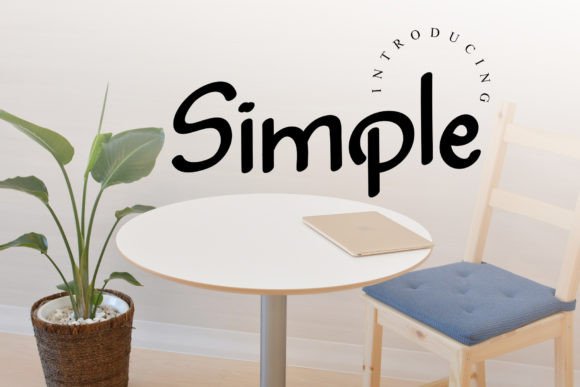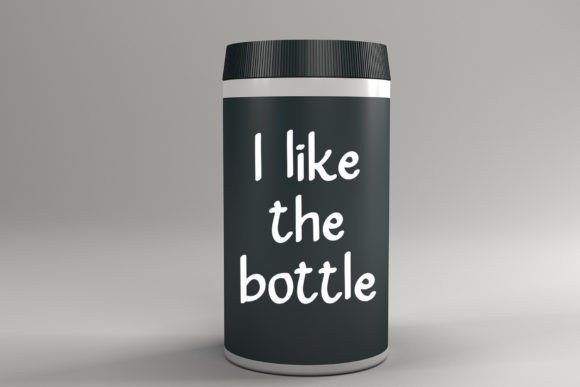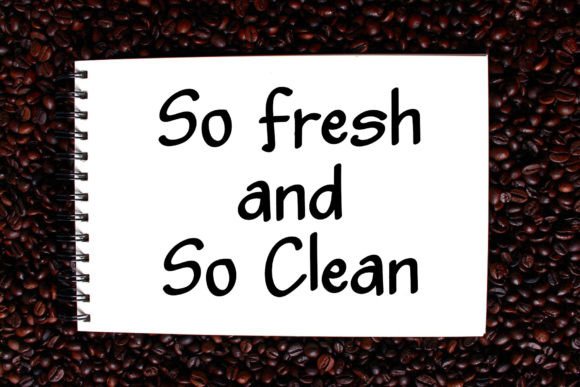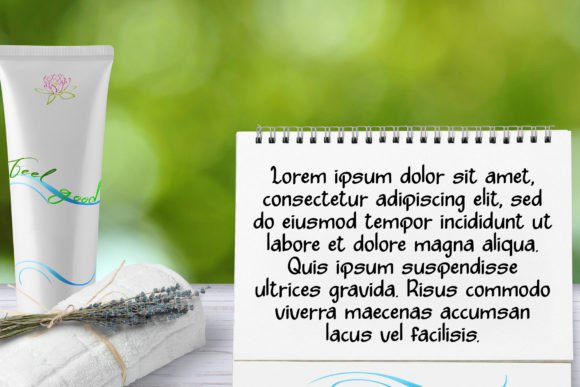
Simple Font
Simple: An Elegant Handwritten Font That Feels Natural and Real
Looking for a typeface that combines sophistication with a natural hand-drawn feel? Meet Simple, an elegant handwritten font crafted to elevate your design projects. With its unique baseline and organic flow, Simple adds a warm, personal touch to both formal and creative designs.
This font is the perfect solution for projects that demand elegance, authenticity, and visual charm. Whether you’re designing for weddings, brands, or personal content, Simple delivers style with grace.
A Handwritten Font with Personality and Class
What makes Simple truly shine is its natural structure. Unlike rigid digital fonts, it features a varied baseline and carefully designed letterforms that replicate the rhythm of real handwriting. This results in a design that feels human, yet remains refined and professional.
This elegant handwritten font is ideal for:
• Wedding invitations and save-the-dates
• Greeting cards and holiday messages
• Business cards and company logos
• Billboard and poster designs
• Personalized branding or packaging
• Journals, notebooks, and planners
Wherever a personal or romantic touch is needed, Simple fits beautifully.
Why Designers Love Simple Font
The Simple font strikes a perfect balance between stylish and approachable. Its slightly whimsical baseline adds just the right amount of charm without compromising readability. You’ll find that it works equally well in large-scale headlines and small text elements.
Key features of this elegant handwritten font include:
• Smooth, flowing characters with a natural feel
• Varied baseline for authentic visual rhythm
• Excellent legibility in print and digital formats
• A graceful aesthetic for romantic or classy themes
• Great pairing with sans-serif or serif fonts
Simple adapts seamlessly to both casual and formal designs, giving you full creative flexibility.
Perfect for Weddings, Branding, and Elegant Touches
Whether you’re designing romantic wedding stationery or crafting a modern logo, Simple is a font that enhances every project. Its natural charm and polished execution make it an invaluable asset for designers, marketers, and DIY creators.
Popular use cases include:
• Elegant event invitations
• Personalized stationery and cards
• Quotes, planners, and social media visuals
• Luxury product packaging and labels
• Website headers and blog titles
Whatever the project, Simple adds emotional value and beauty.
If you’re aiming for a handwritten style with elegance and authenticity, Simple is the font you’ve been looking for. This elegant handwritten font blends character, charm, and style in a way that feels both modern and timeless.